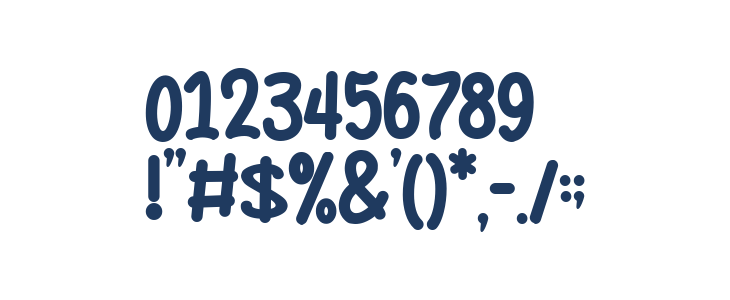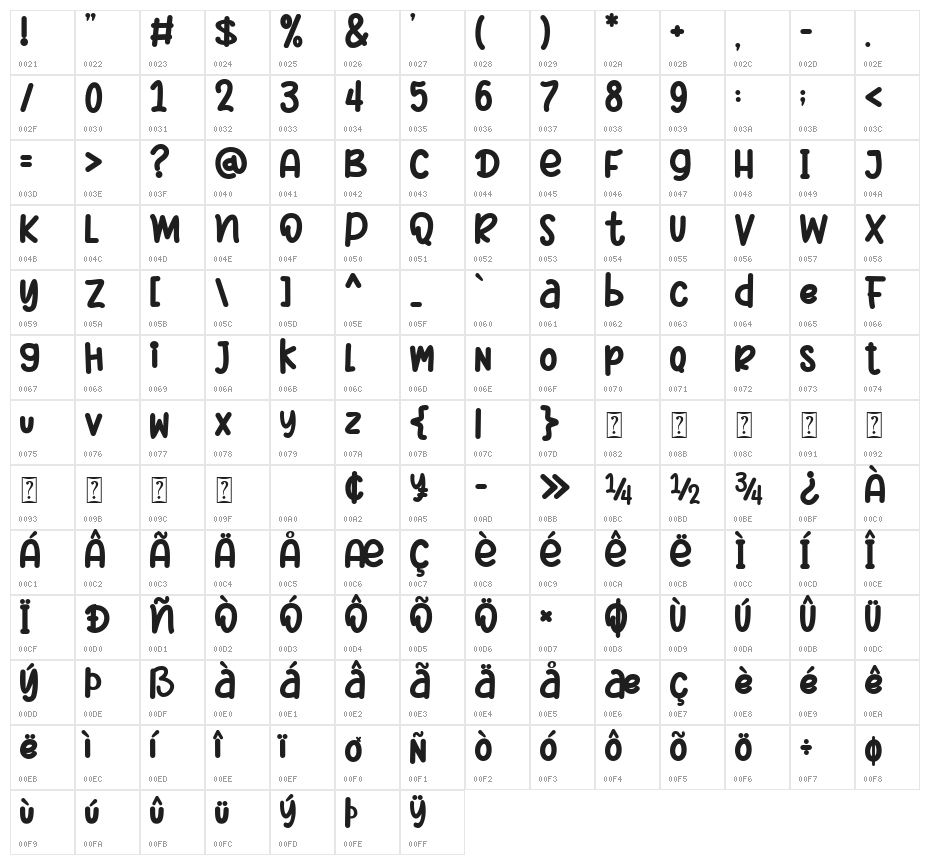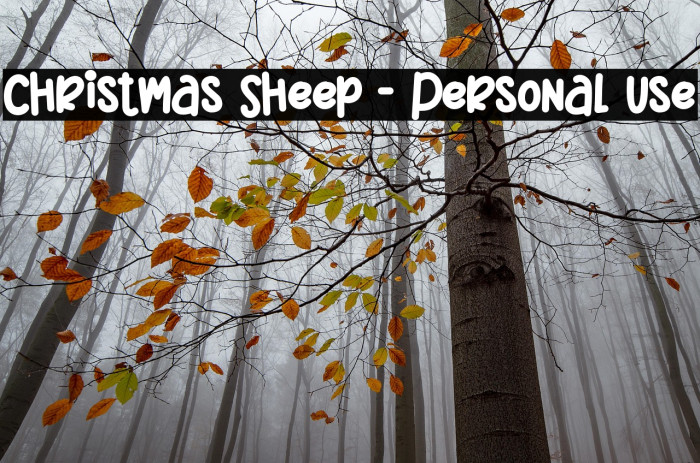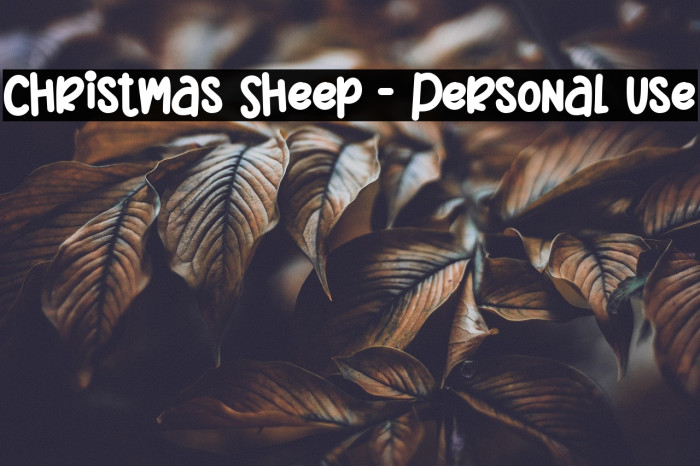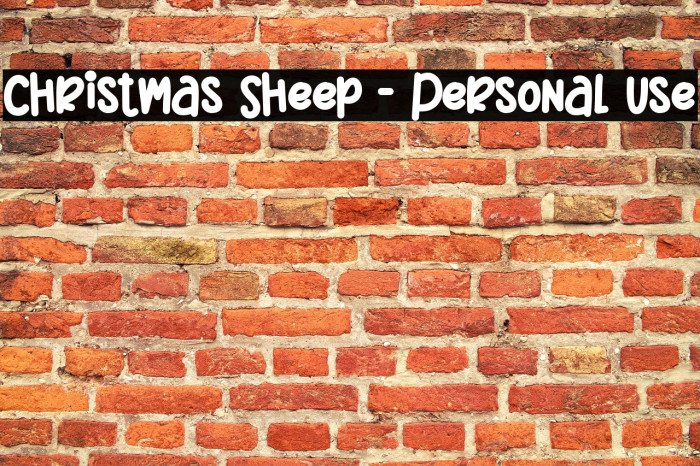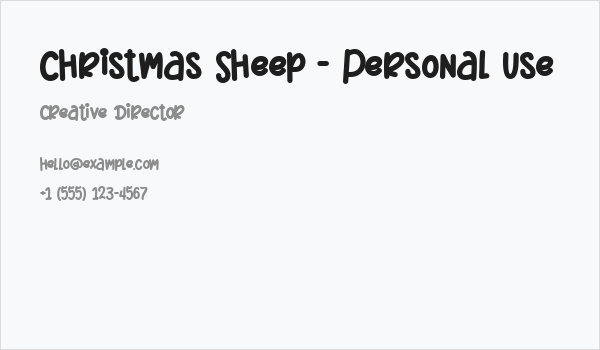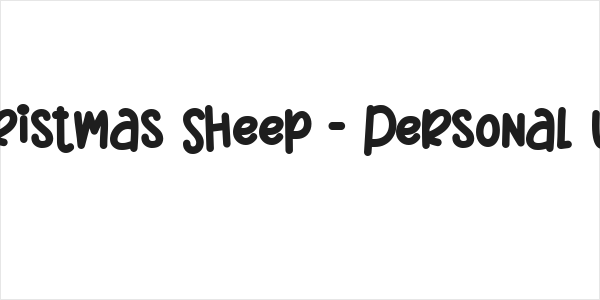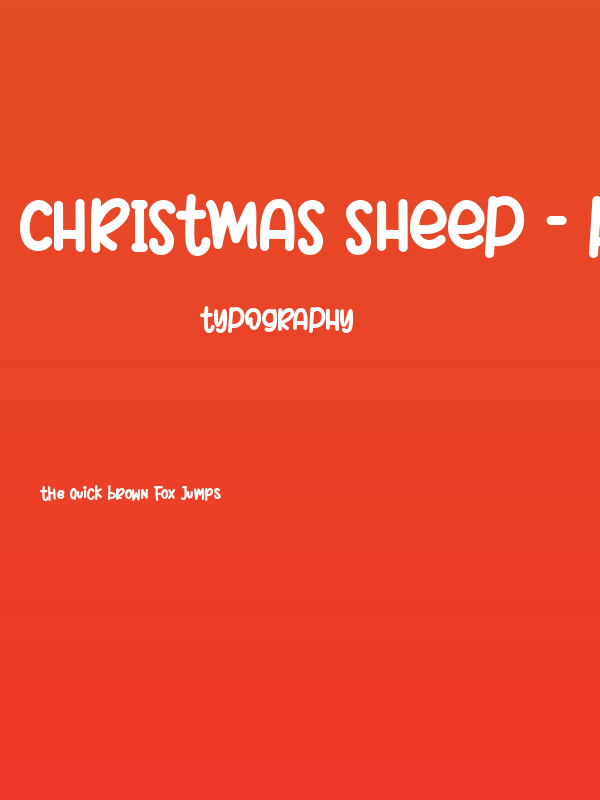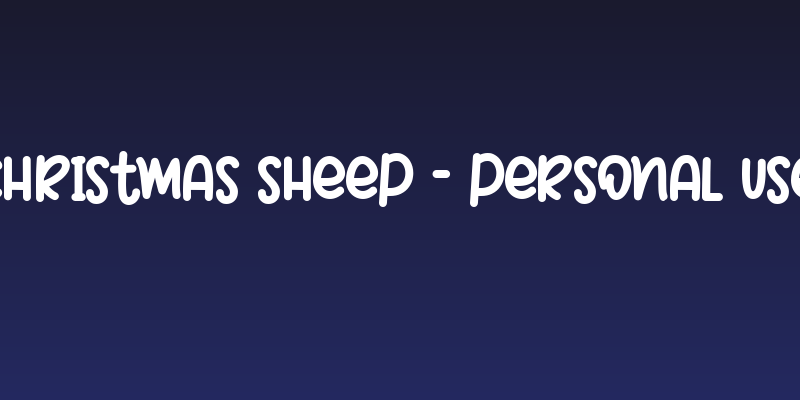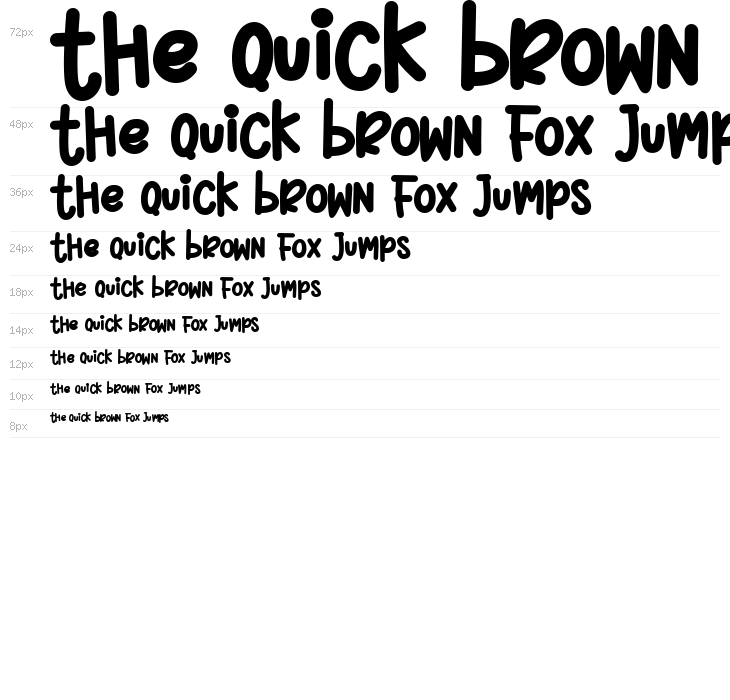
Christmas Sheep - Personal Use Font
Christmas Sheep - Personal Use Description
This playful and whimsical font features bold, rounded characters that convey a sense of fun and creativity. The letters are uniformly thick, giving the font a cohesive and solid appearance. The rounded edges and slightly irregular shapes add a hand-drawn feel, making it perfect for informal and lighthearted designs. The numbers and special characters maintain the same playful style, ensuring consistency across all text elements. This font is ideal for projects that require a friendly and approachable aesthetic.
| Proposed Projects | Great for children's books, party invitations, greeting cards, and playful branding. |